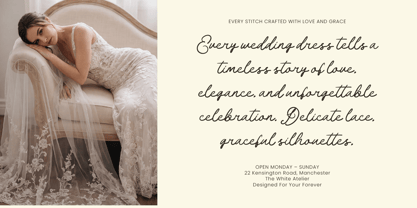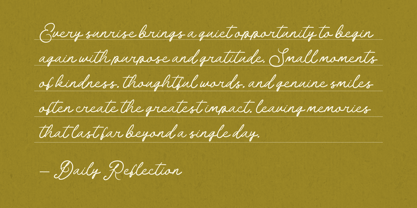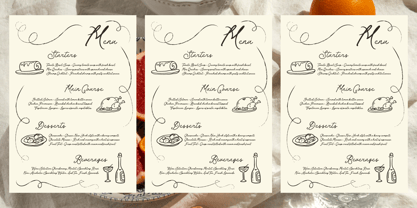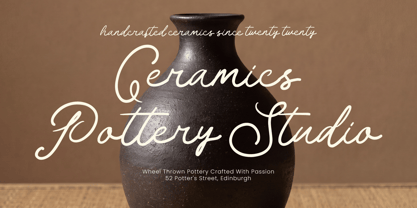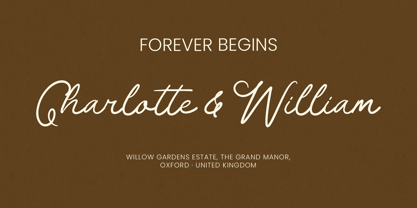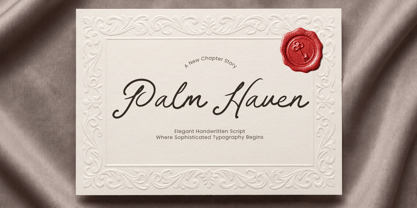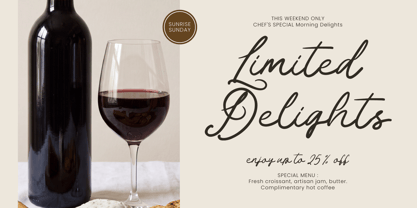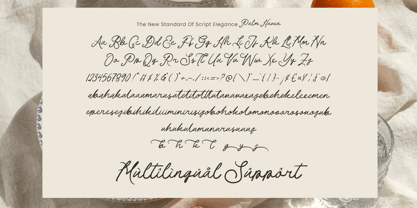
Palm Haven
by Amorfa Type
The Palm Haven Font Family was designed by Shiddiq Roihan and published by Amorfa Type. Palm Haven contains 2 styles and family package options. More about this family
Palm Haven is an elegant handwritten script font designed to express sophistication, warmth, and timeless beauty. Inspired by handwritten letters, romantic celebrations, refined stationery, and luxury lifestyle aesthetics, Palm Haven delivers a graceful personality while maintaining a natural and authentic handwritten flow.
With delicate curves, flowing connections, and expressive strokes, this typeface is perfect for wedding invitations, luxury branding, beauty packaging, event stationery, boutique businesses, lifestyle content, social media visuals, and editorial projects that require an elegant and personal touch.